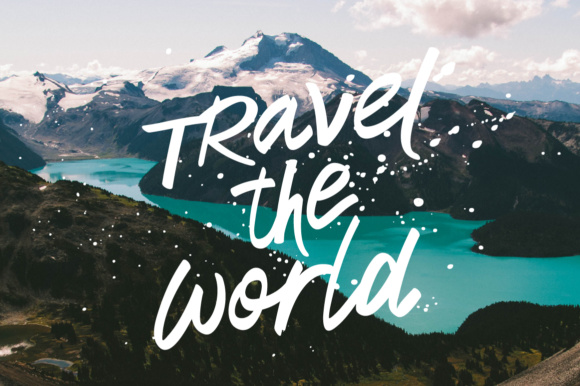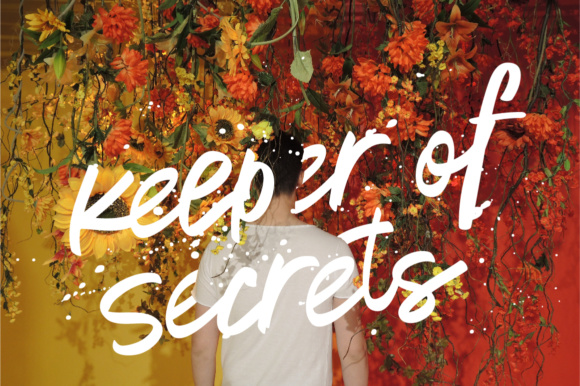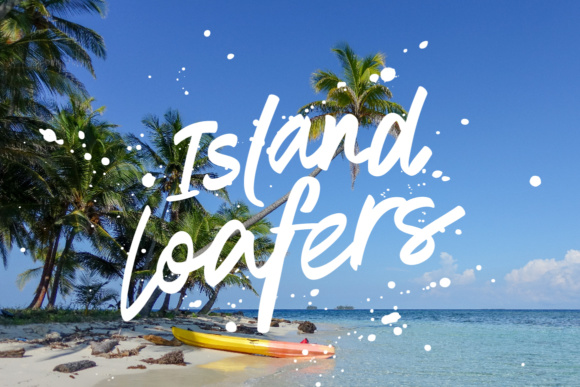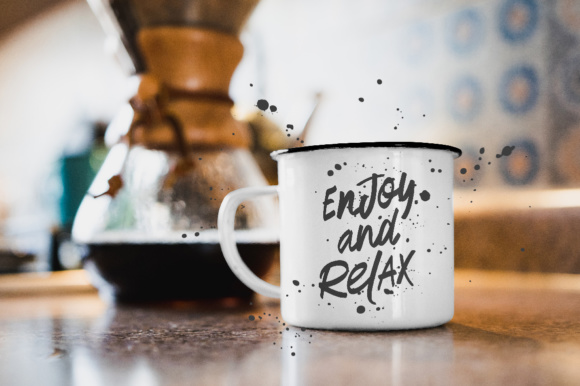
About Sunless Day Font
Sunless Day is a hand drawn brush font. It comes with uppercase and lowercase characters, large set of punctuation glyphs, numerals, cyrillic characters, set of alternative latin characters, ligatures (latin and cyrillic) and multilingual support. Ideal for logos, product packaging, t-shirt, handwritten quotes and etc.